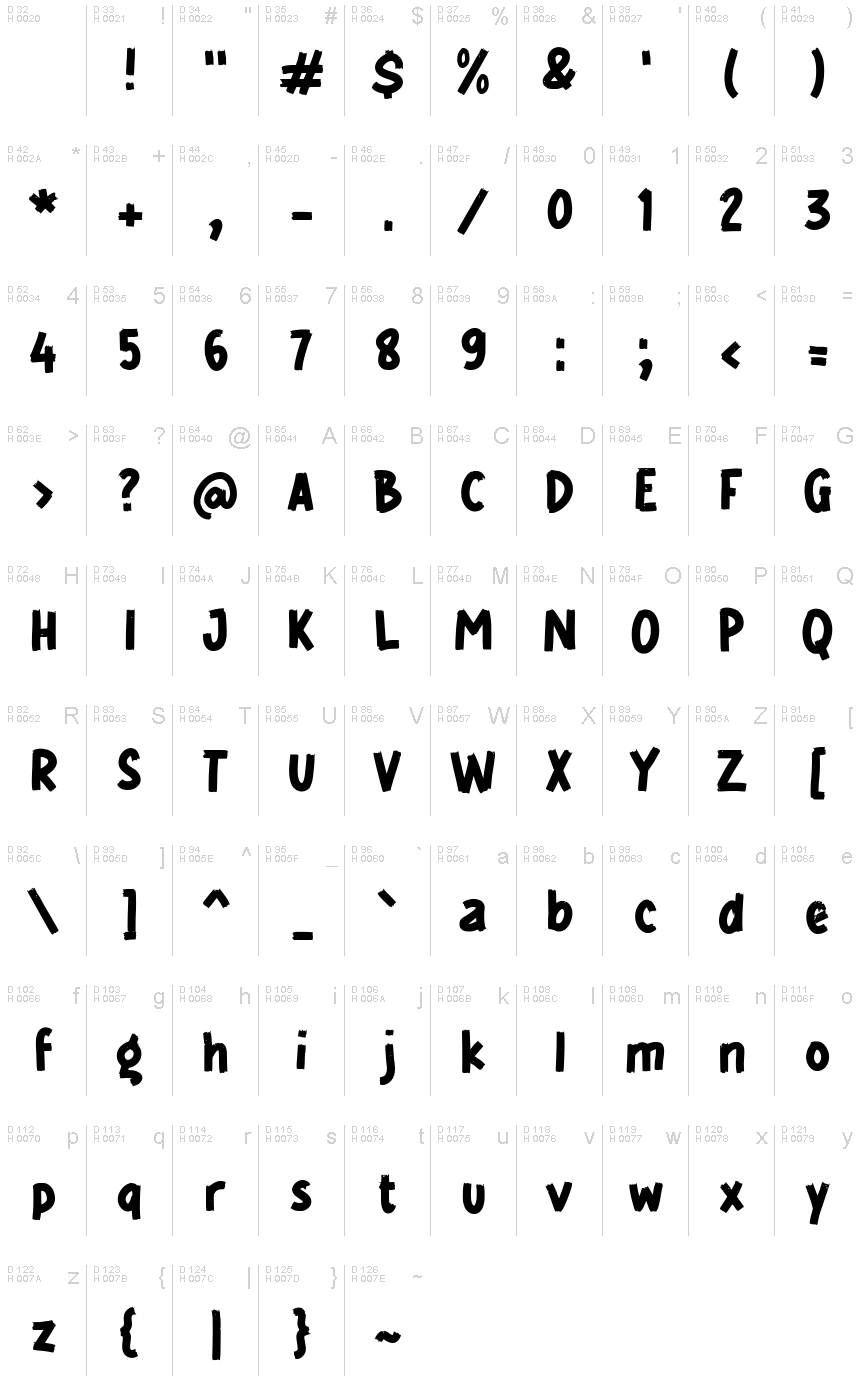
GEMPUR
Gempur, a captivating handwritten font crafted by designer wep, exudes a distinct and charming personality. The bold, organic strokes and playful, expressive lines create a captivating visual experience, evoking a sense of warmth and authenticity. The font's unique characteristics, such as its fluid transitions and subtle imperfections, lend it an artisanal, handcrafted aesthetic that would seamlessly complement a variety of design projects.
Gempur's versatility shines through its ability to elevate branding, packaging, editorial layouts, and even digital applications. Its natural, hand-drawn quality would add a touch of personality and character to logos, headers, and invitations, while its legibility and adaptability make it a versatile choice for body copy and captions. Gempur's distinctive style is sure to leave a lasting impression, making it an ideal font for designers seeking to infuse their projects with a touch of authenticity and personality.